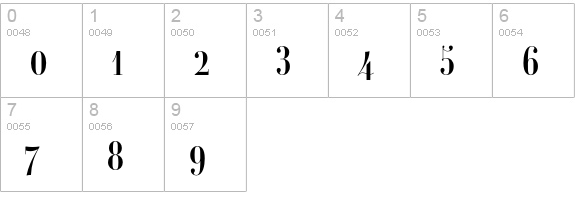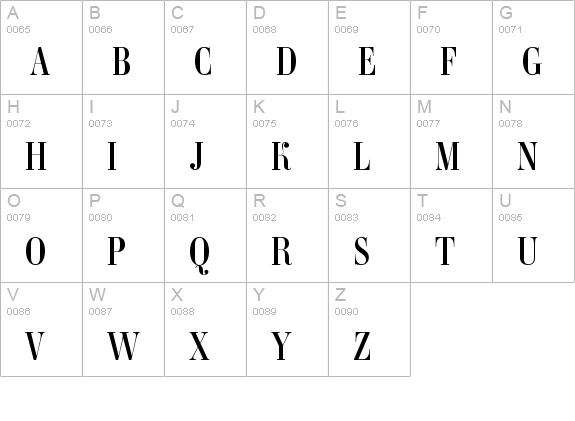
Ambroise Firmin Regular Font Details
Ambroise Firmin Regular is the standard, neutral variant in the Ambroise typeface family \xE2\x80\x94 well suited to general body text, paragraphs, and standard typographic work.
Ambroise Firmin Regular font is a versatile and elegant typeface that exudes sophistication and style. Its clean lines and classic design make it perfect for a wide range of design projects, from branding to editorial design. The timeless appeal of Ambroise Firmin Regular font adds a touch of refinement to any layout or composition. This font is not only aesthetically pleasing but also highly legible, making it ideal for both print and digital applications. Whether you're designing a logo, creating a poster, or crafting a website, Ambroise Firmin Regular font is sure to elevate your design to the next level. The best part? Ambroise Firmin Regular font is completely free to download at FontsMarket.com. Take advantage of this opportunity to enhance your projects with this stunning typeface without breaking the bank. Download Ambroise Firmin Regular font today and add a touch of elegance to your designs.